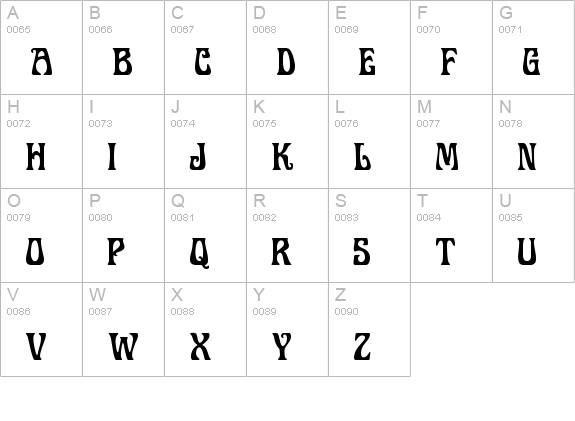
Legrand MF Font Details
Legrand MF font is a modern and elegant typeface that exudes sophistication and style. With its clean lines and balanced proportions, this font is perfect for a wide range of design projects, from branding to editorial design. The Legrand MF font features a unique combination of classic elegance and contemporary flair, making it a versatile choice for any creative endeavor. One of the best things about Legrand MF font is that it is completely free to download. You can easily access this stunning font at FontsMarket.com, where you can download it and start using it in your projects right away. Whether you're working on a logo, website design, or print materials, Legrand MF font is sure to elevate your work and make a lasting impression. Take advantage of this amazing free font today and add a touch of sophistication to your designs.